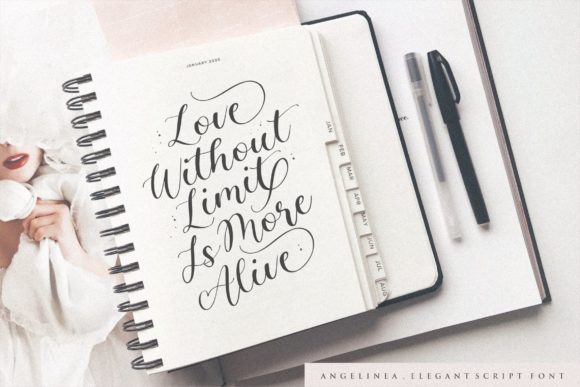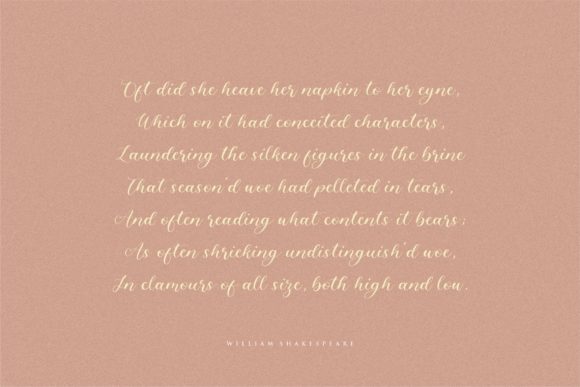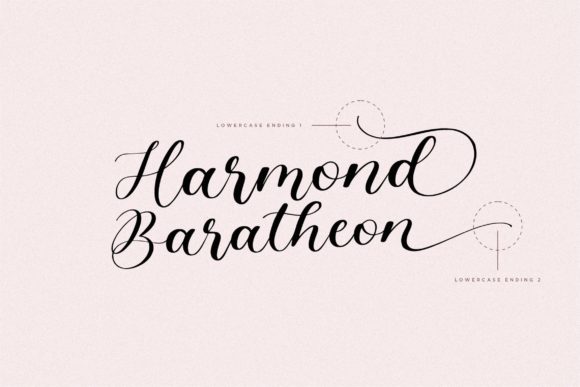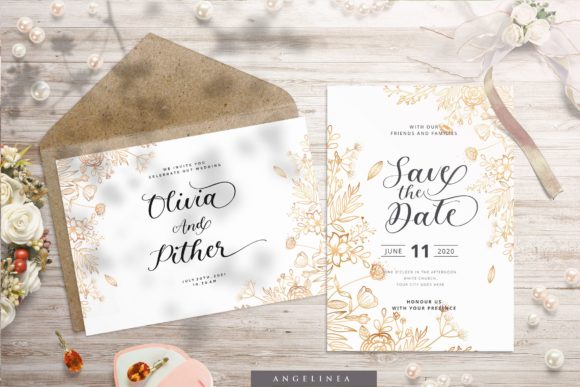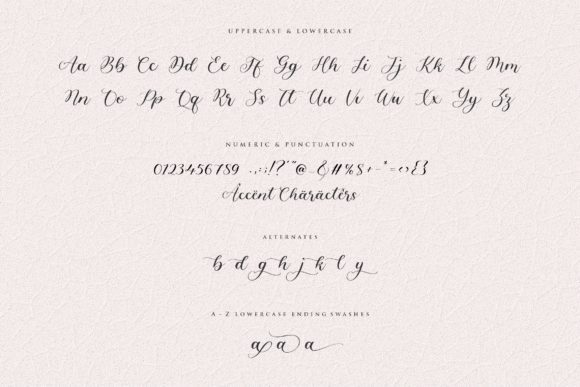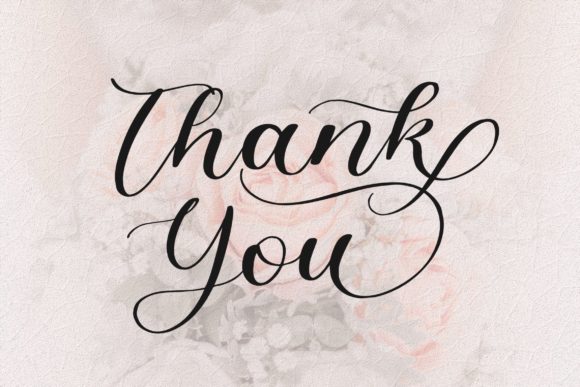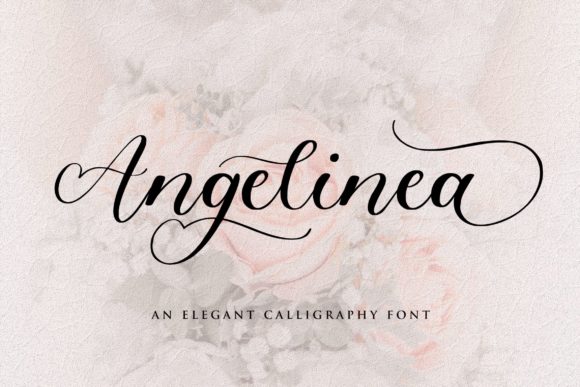
The Elusive Font: A Love Story with Angelinea
I’ll never forget the frustration of working on a design project, hours spent scrolling through font libraries, and yet, none seemed quite right. The client wanted a script font that was elegant, yet playful; delicate, yet impactful. It was then that I stumbled upon Angelinea, a lovely script font that has since become a staple in my design toolkit.
An Honest Review of Angelinea
- ✨ Delicate flow: Angelinea’s script is smooth and fluid, perfect for creating elegant text pieces.
- ✅ Well-balanced characters: Each letter is carefully crafted to ensure a harmonious visual experience.
- 💫 PUA encoded: Easy access to all glyphs and swashes, making it a breeze to customize.
- 🎨 Versatile: Angelinea matches a wide range of designs, from whimsical crafts to sophisticated branding.
While Angelinea is an excellent font, there are a few minor considerations:
- ⚠️ Limited use in very small sizes: As with many script fonts, Angelinea may lose some of its elegance when scaled down.
- 🤔 Occasional kerning adjustments: Some letter combinations may require manual tweaking for optimal spacing.
The Story Behind Angelinea: Designer Inspiration
Angelinea was crafted with love by a talented type designer who sought to create a font that embodied elegance and playfulness. The designer’s inspiration came from classic script fonts, with a modern twist to make it versatile and user-friendly.
| Font Name | Angelinea Font |
| Author | Balpirick |
PUA (Private Use Area) encoding allows font creators to include additional glyphs and swashes that can be easily accessed by users. This means you can unlock more creative possibilities with Angelinea.